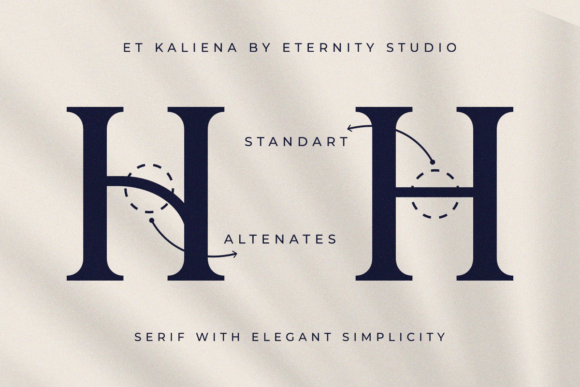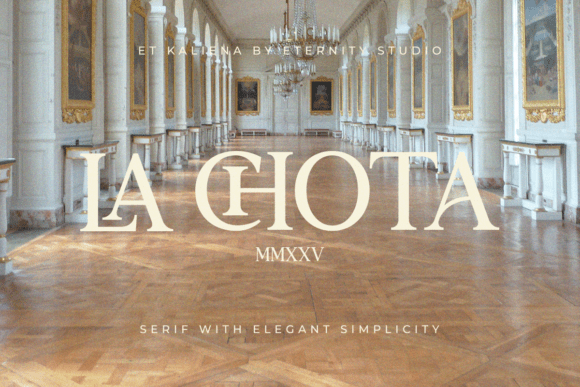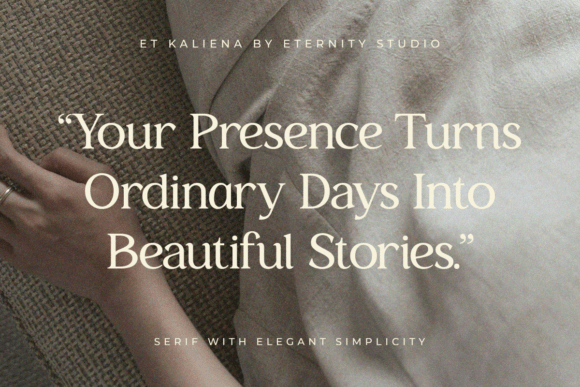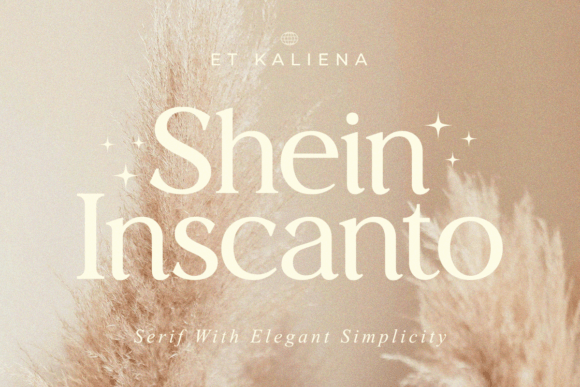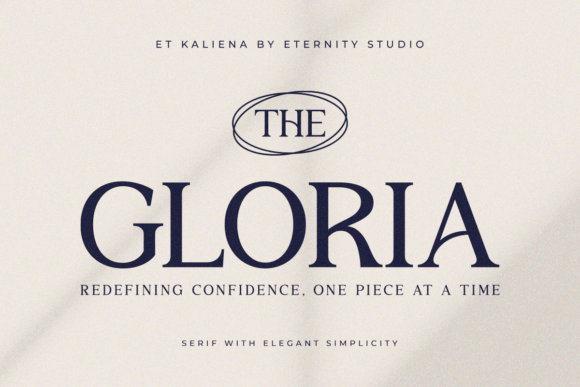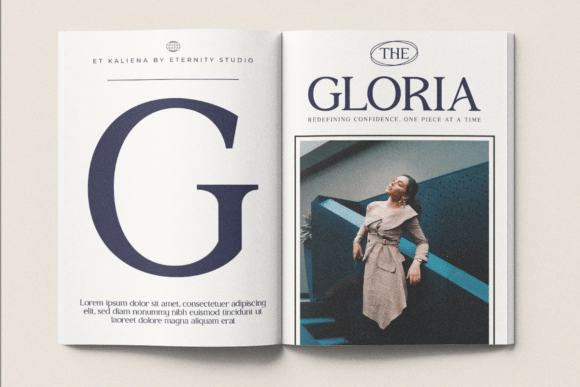
Introduction to Kaliena Font
Have you ever stared at a blank canvas, waiting for inspiration to strike, only to be met with a sea of possibilities? This is the moment where a great font can make all the difference. For designers, the right typography can elevate a creative project from bland to grand, and that’s exactly what the Kaliena Font offers.
As a timeless and luxurious serif font, Kaliena exudes an aura of sophisticated simplicity and professionalism, making it the perfect design resource for high-end branding and elegant projects. With its clean lines and balanced forms, this font is sure to leave a lasting impression. Whether you’re working on a complex design or need a high-quality font for a free download, Kaliena Font is an invaluable addition to any designer’s toolkit.
- High-quality design resource with a unique and creative style, perfect for any project that requires a modern touch.
- Unique characteristics, including a bold and elegant feel, making it perfect for creative projects such as branding, logos, and typography-based art.
- Perfect for designers and artists looking for a high-quality design resource to elevate their creative project.
Honest Review: Kaliena Font
I recently had the chance to work with the Kaliena Font, and I must say it’s been a pleasant experience. This font is perfect for creative projects that require a unique touch, and its high quality design makes it a valuable resource for any designer.
- ✨ The font’s creative flair adds a touch of elegance to any project, making it perfect for branding, packaging, and even web design.
- ⚠️ The font may not be suitable for projects that require a large amount of text, as it can become difficult to read in smaller font sizes.
- ⚠️ The font’s unique design may not be to everyone’s taste, so it’s essential to use it thoughtfully in your projects.
Overall, I’m impressed with the Kaliena Font. Its unique design and high quality make it a valuable addition to any designer’s toolkit. While it may have some limitations, I believe the benefits far outweigh the drawbacks, and I would definitely recommend it to fellow designers.
Kaliena Font
Kaliena Font is a high-quality design resource perfect for any creative project. Its versatility and modern style make it an excellent addition to your design library.
Kaliena Font is ideal for a variety of design projects, including:
- Social media graphics and ads
Alternatives to Kaliena Font
Oswald is a popular sans-serif font that is suitable for various creative projects, including logos, headings, and body text. It is highly legible and versatile, making it an ideal choice for designers who need a high-quality font for their design resource. When to use: Use Oswald for modern and clean designs, especially those with a transparent background.
Comparison to Kaliena Font: Oswald is more geometric and modern compared to the rounded edges of Kaliena Font. It is also more versatile and can be used for a wide range of typography styles.
Montserrat is a modern sans-serif font that is designed for digital use. It is highly legible and suitable for various creative projects, including logos, headings, and body text. When to use: Use Montserrat for urban and modern designs, especially those with a high-quality and sleek aesthetic.